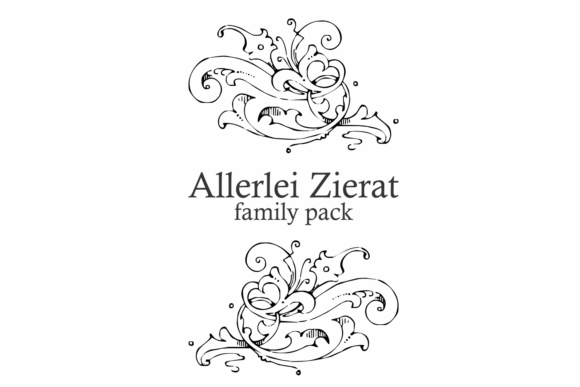
The Allure of Ornate Details
Have you ever found yourself lost in the intricate patterns and designs of an old book or a vintage poster? I know I have. There’s something magical about the way these ornate details transport us to another time and place, full of beauty and craftsmanship. For designers, this sense of wonder can be a powerful catalyst for creativity.
One of the most fascinating resources for designers is the Allerlei Zierat Family Font, a collection of ornaments and decorative elements drawn from the rare and valuable Allerlei Zierat book by Schelter & Gieseck, published in 1902. This treasure trove of design elements offers a unique glimpse into the art of the past, with its intricate patterns, traditional styles, and whimsical motifs.
For designers, the Allerlei Zierat Family Font is a valuable resource, providing a wealth of inspiration and a chance to tap into the creativity of the past. With its wide range of styles and categories, from traditional to Jugendstil, this font family is a must-have for anyone looking to add a touch of elegance and sophistication to their designs.
Allerlei Zierat Family Font Key Features
- Font Family: Allerlei Zierat is a serif font family with 6 styles: Regular, Italic, Bold, Bold Italic, Roman, and Script.
- Unique Characteristics: Allerlei Zierat features a unique blend of traditional and modern elements, with intricate details and ornaments that make it ideal for use in invitations, greeting cards, and other decorative materials.
Allerlei Zierat Family Font Review
Overall, I think the Allerlei Zierat Family Font has some great qualities, but also a few areas that need improvement. ✨
What I love about this font is its whimsical feel and wide range of styles. It’s perfect for designers who want to add a touch of playfulness to their projects. The font comes in several weights and styles, making it easy to customize and adapt to different design needs. The script and ornament styles are especially beautiful, adding a unique touch to any design.
- Whimsical and playful feel
- Wide range of styles and weights
- Perfect for adding a touch of elegance to designs
- Beautiful script and ornament styles
- May be difficult to read in small sizes
- Some characters may be awkwardly shaped or spaced
- Lack of consistency in font pairing
Overall, I think the Allerlei Zierat Family Font has a lot of potential, but needs some refinement to become a truly top-notch font. With some tweaks to address the limitations, I think it could be a great addition to any designer’s toolkit. ⚠️
Getting the Most Out of Allerlei Zierat Family Font
For optimal results, use Allerlei Zierat Family Font for titles, headings, and body text in combination with other decorative elements.
Experiment with different font sizes, colors, and combinations to create visually appealing designs.
Allerlei Zierat Family Font is ideal for:
Business cards and brochures
Food and beverage labels
Home decor and stationery